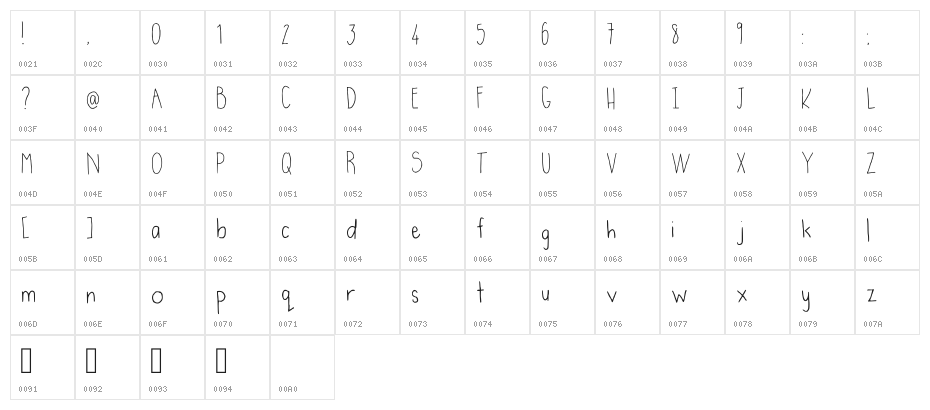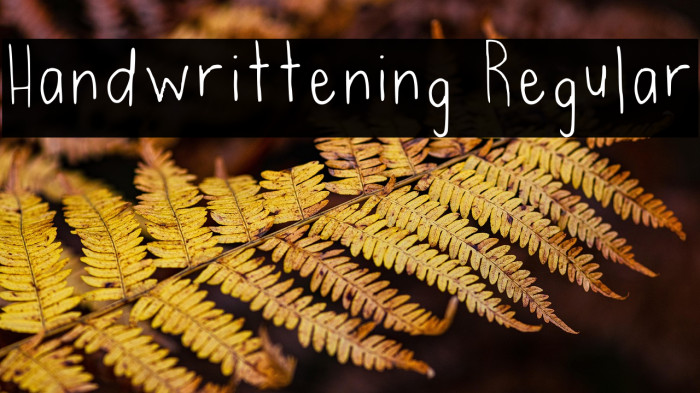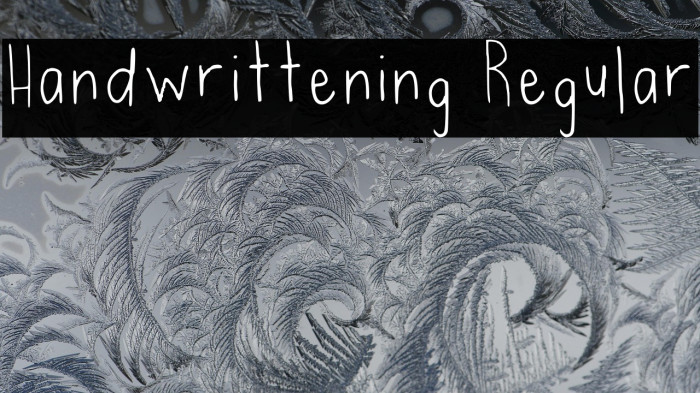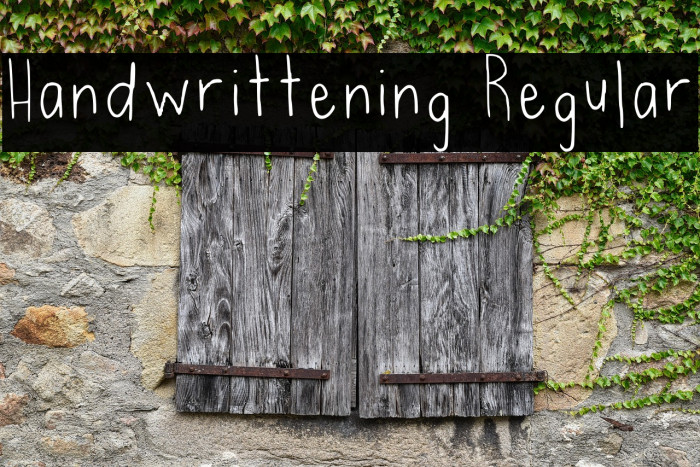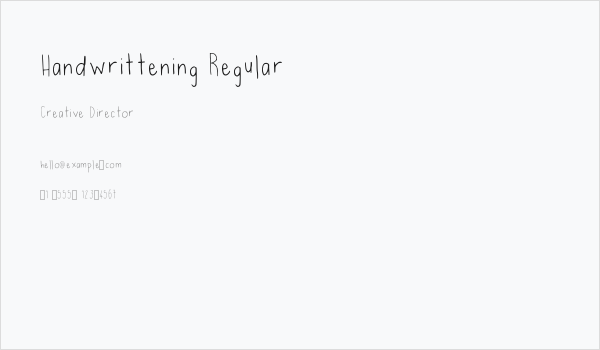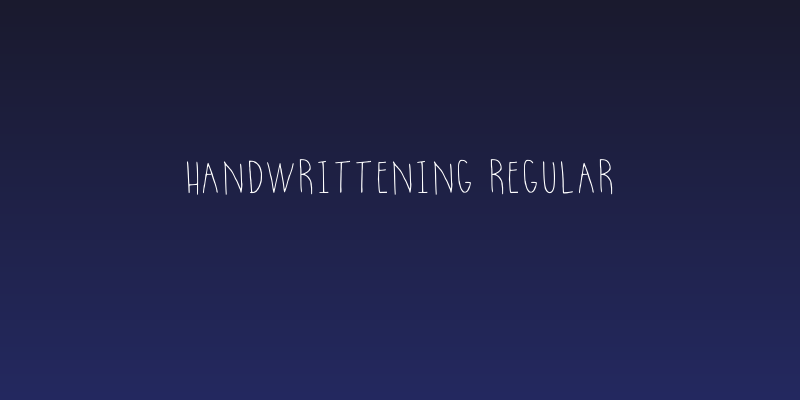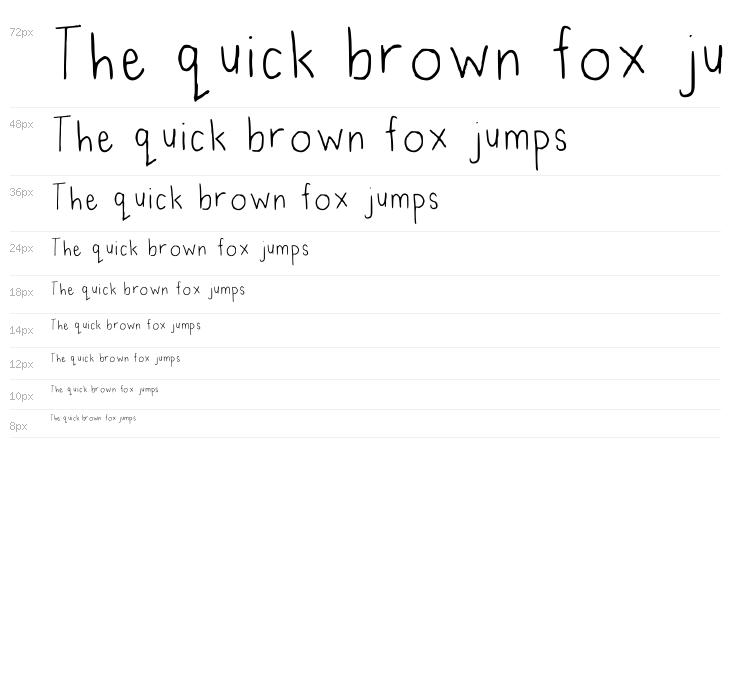
Handwrittening Regular Font
Handwrittening Regular Description
This font exudes a casual, handwritten charm with its irregular, slightly wobbly lines that mimic the natural flow of handwriting. The characters are tall and slender, giving an airy feel, while maintaining a consistent baseline. The uppercase letters are slightly taller than the lowercase, and the numbers follow the same slender style. The overall appearance is playful yet legible, making it suitable for informal and creative projects. The spacing between characters is normal, allowing for clear readability without feeling cramped. This font's unique personality makes it ideal for projects that require a personal touch.
| Overall Style | Casual, Playful |
| Use Case | Headlines, Informal text, Creative projects |
| Proposed Projects | Ideal for greeting cards, personal notes, creative invitations, and informal branding. |